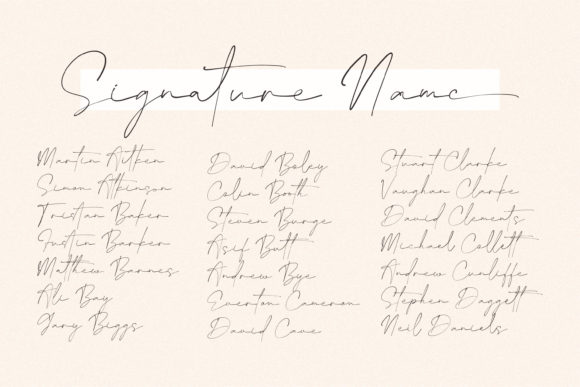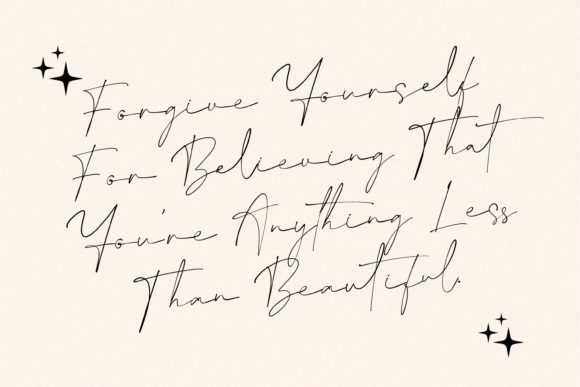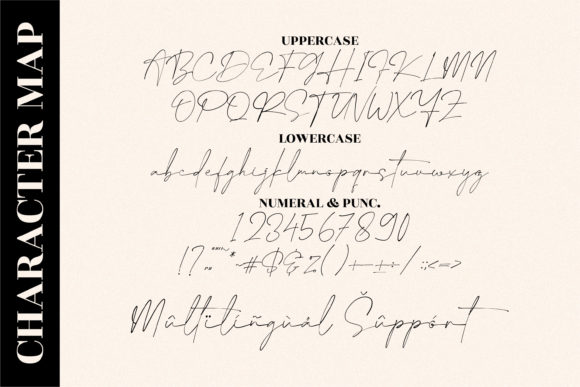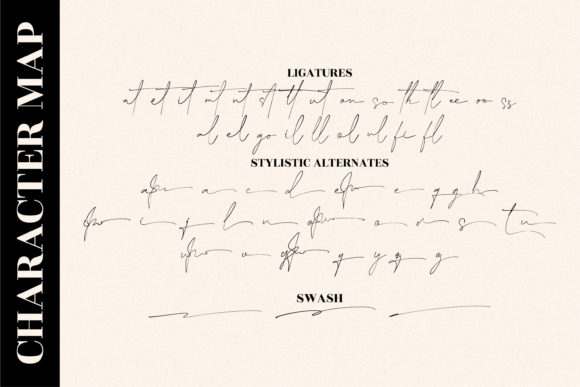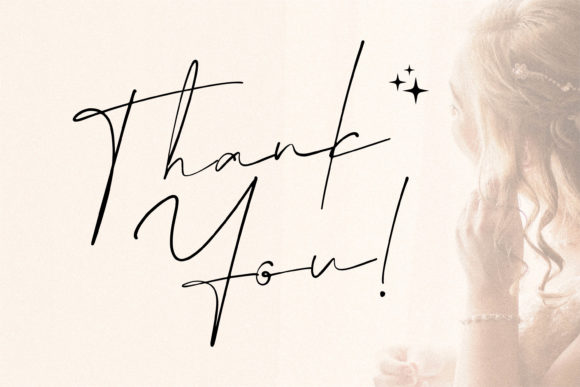
About Bentila Signate Font
Bentila Signate is a delicate, whimsical and uniquely shaped handwritten font. Trendy and stylish, this font will elevate each of your creations. Bentila Signate is PUA encoded which means you can access all of the glyphs and swashes with ease!Â